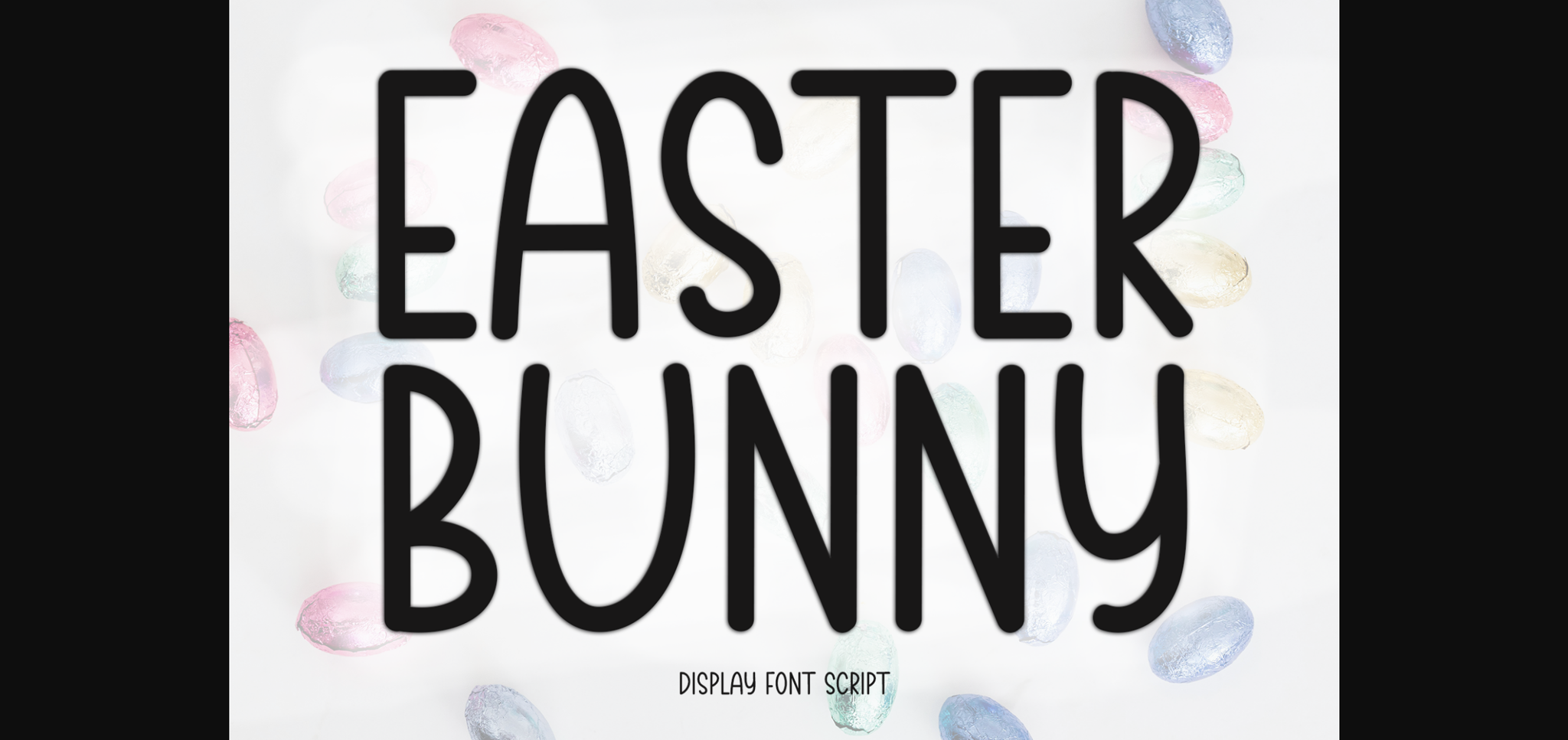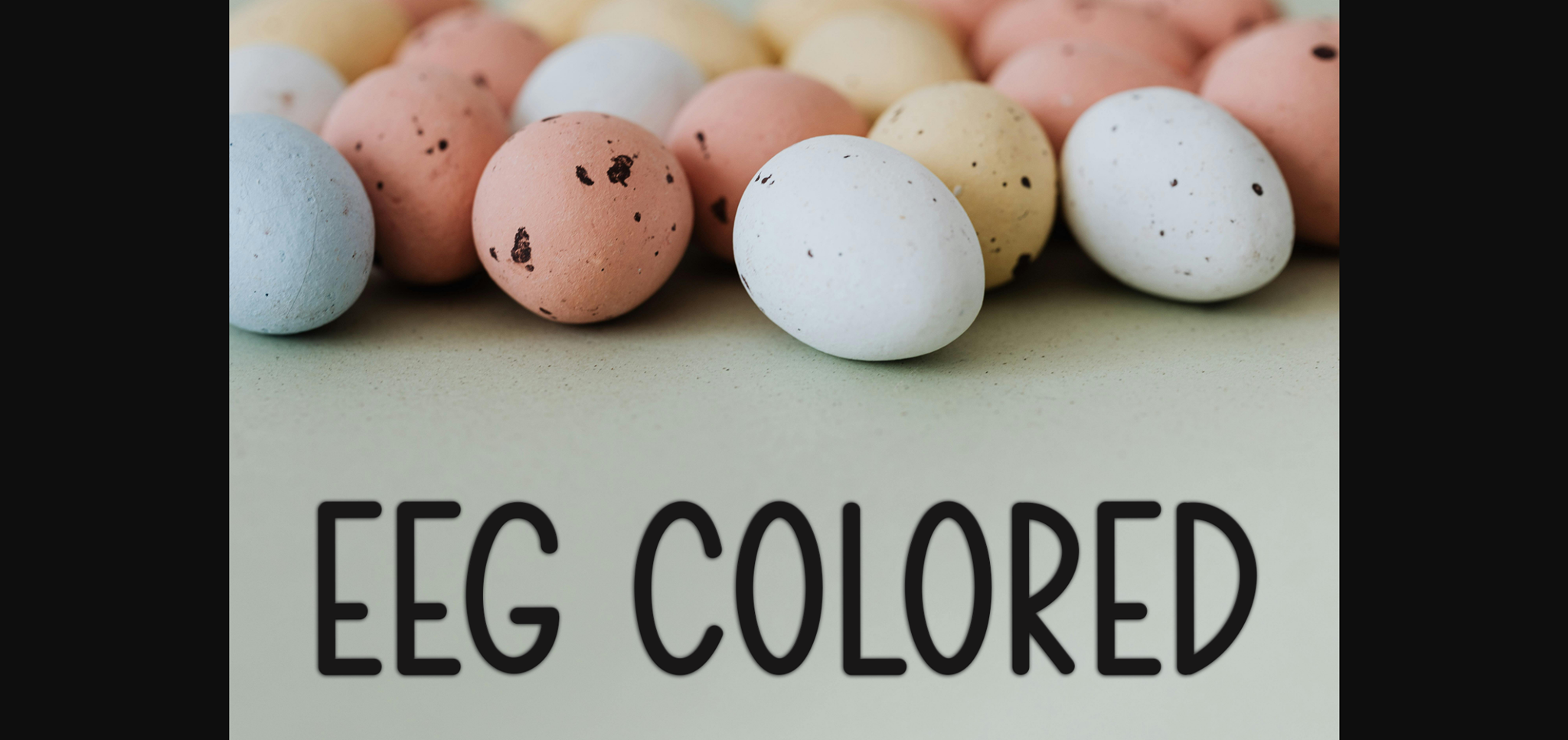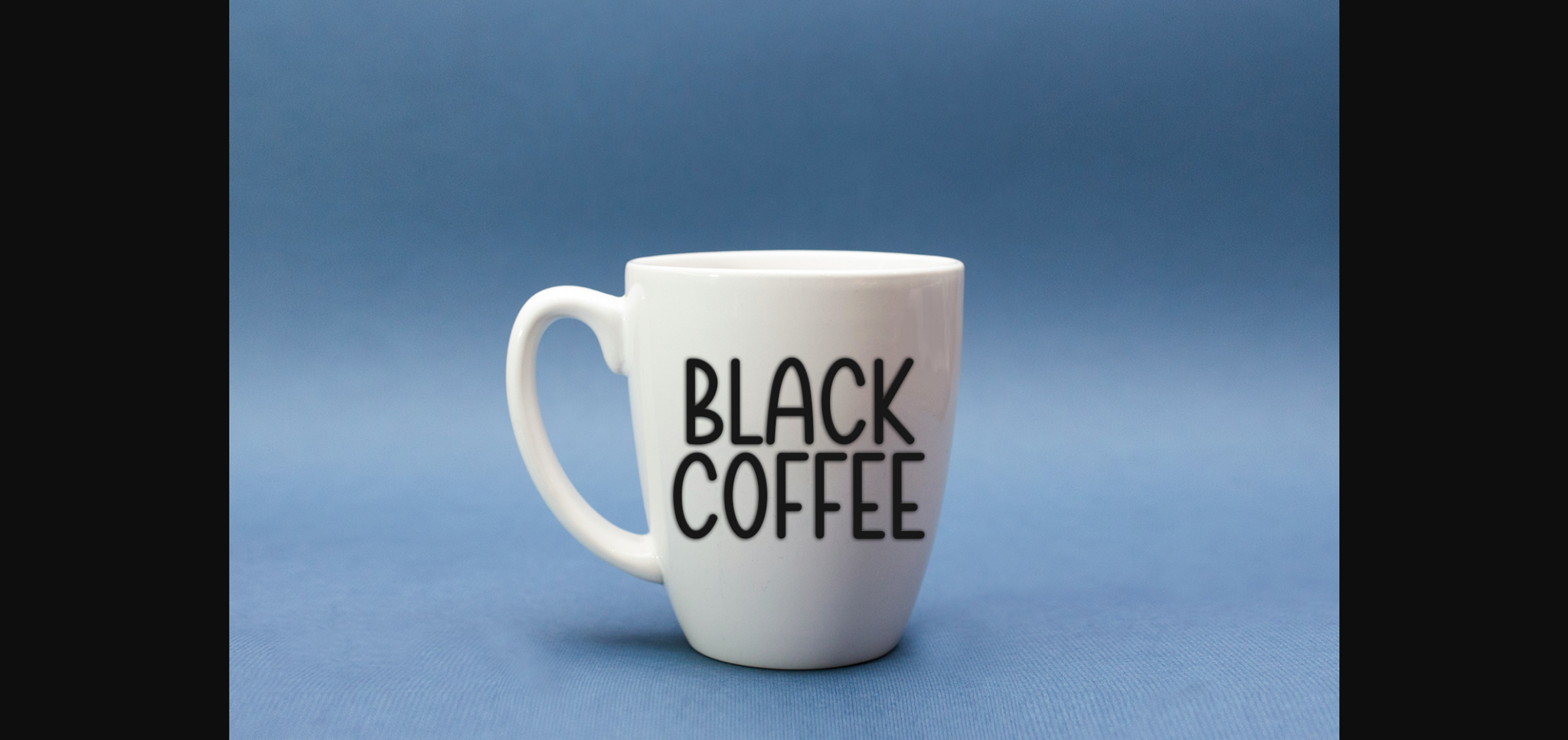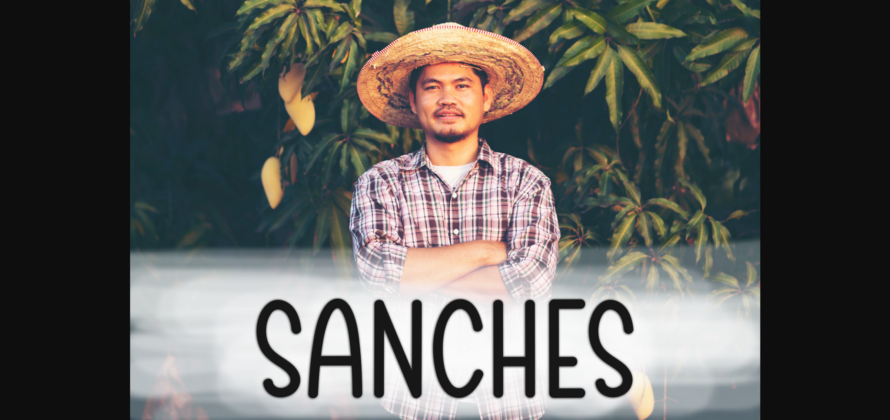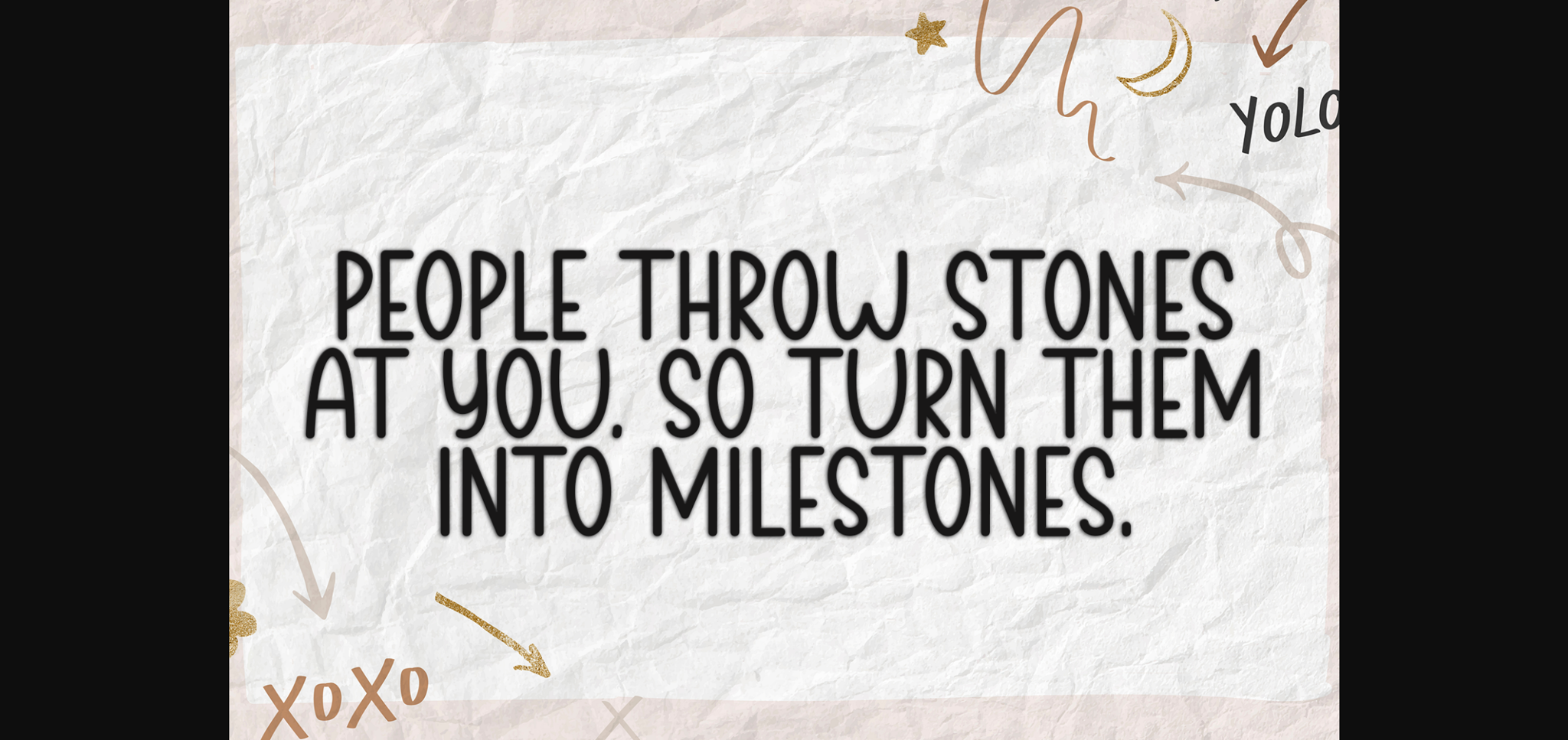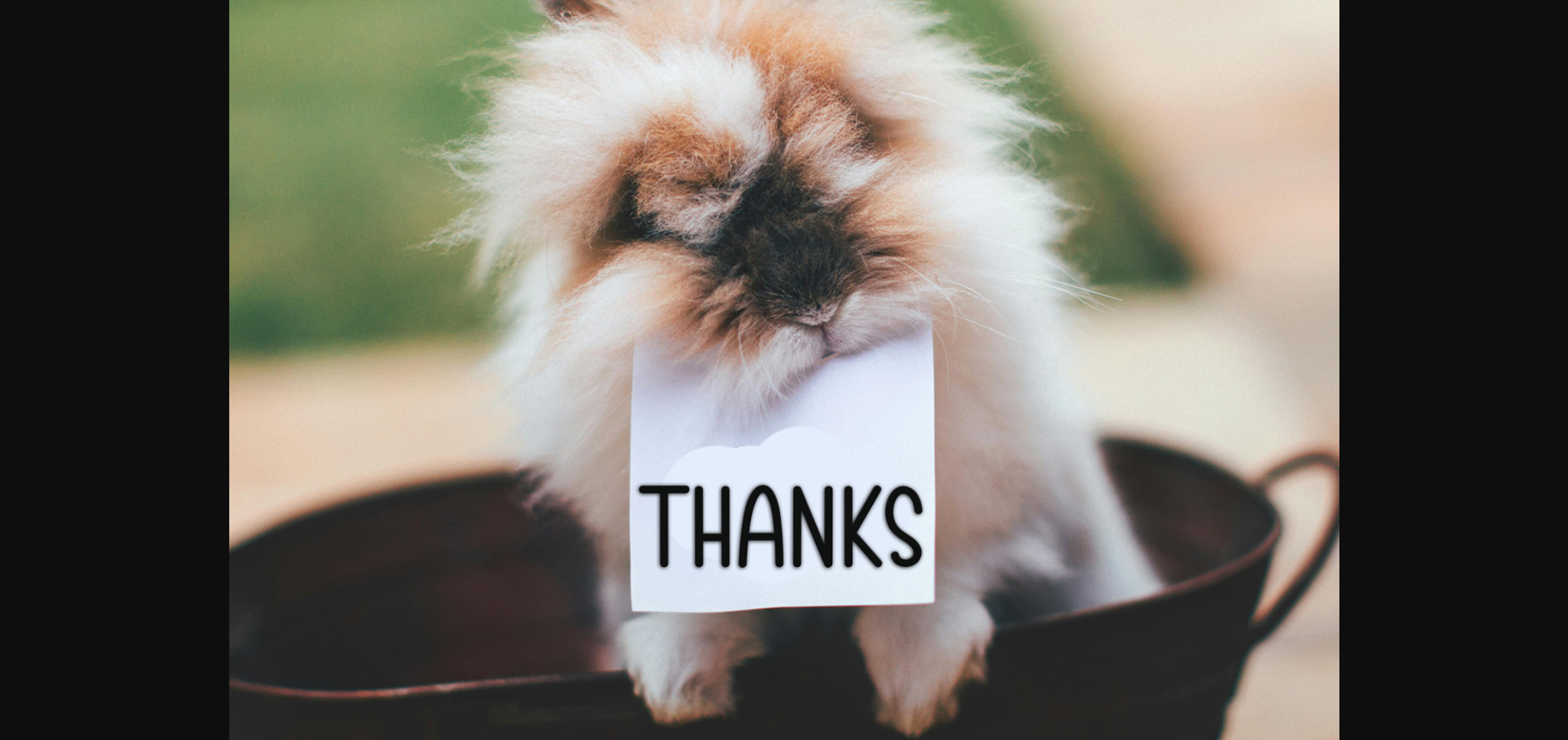
HomeSans Serif FontsEaster Bunny Font Sans Serif Fonts Easter Bunny Font FacebookXPinterestWhatsApp 1 of 8 ... Easter Bunny Font Poster 2... Easter Bunny Font Poster 3... Easter Bunny Font Poster 4... Easter Bunny Font Poster 5... Easter Bunny Font Poster 6... Easter Bunny Font Poster 7... Easter Bunny Font Poster 8... About Easter Bunny Font Easter Bunny is a neat and casual sans-serif font. Whatever the topic, this font is perfect for your creative craft needs! DOWNLOAD NOW People also explored Fresh Juice Font Trans Atlantic Font Chalk Love Font Mondevilla Font Lilya Birth Flower Font Vanilla Shot The Heather Font Juvenile Font Sania Monogram Font 297 0 TagsEaster Bunny Font Previous articleSunny Day FontNext articleMoonlight Font LEAVE A REPLY Cancel reply Comment: Please enter your comment! Name:* Please enter your name here Email:* You have entered an incorrect email address! Please enter your email address here Website: Save my name, email, and website in this browser for the next time I comment. Personal Use Free Veronica Personal Use Free Read more about this font Engebrechtre Personal Use Free Read more about this font Bitcrusher Condensed Bold Personal Use Free Read more about this font Doriss Girls Family Personal Use Free Read more about this font BLOG Elegant Wedding Invitation Fonts – Handwritten & Script Fonts Elegant Wedding Invitation Fonts Your wedding day is one of the most important moments of your life, and every detail matters—including your invitation design. Our... 5 Fonts That Will Dominate Design Trends in 2026 Where to Buy American Fonts Online in 2024 Top 10 Handwritten Fonts That Elevate Your Designs